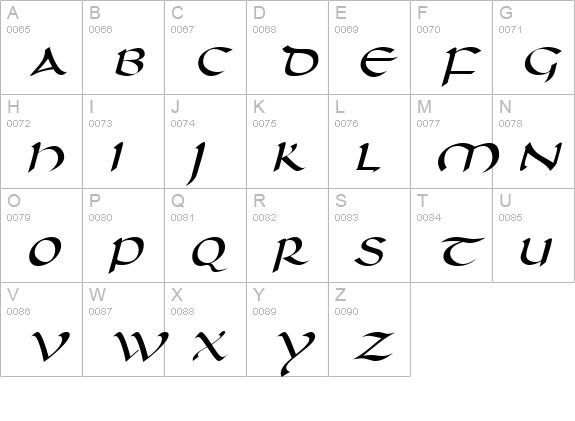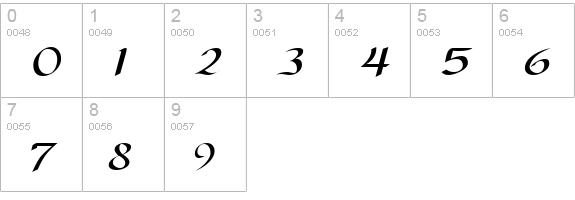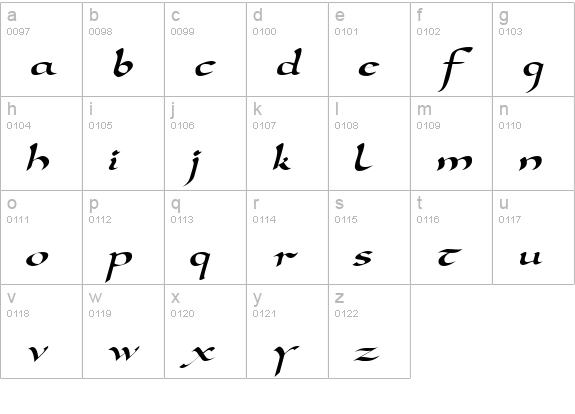
D790-Script-Regular is the standard, neutral variant in the D790 typeface family \xE2\x80\x94 well suited to general body text, paragraphs, and standard typographic work.
D790-Script-Regular is a charming and elegant font that exudes a sense of sophistication and creativity. With its flowing and graceful script style, this font is perfect for adding a touch of class to various design projects, from invitations to branding materials. The smooth curves and delicate lines of D790-Script-Regular give it a timeless and versatile appeal, making it suitable for a wide range of applications. Best of all, D790-Script-Regular is available for free download at FontsMarket.com, making it accessible to anyone looking to enhance their designs with a touch of elegance. Whether you’re a designer working on a professional project or someone looking to add a personal touch to your creations, this font is sure to impress with its beauty and versatility. Don’t miss out on the opportunity to elevate your designs with the exquisite D790-Script-Regular font, now available for free at FontsMarket.com.